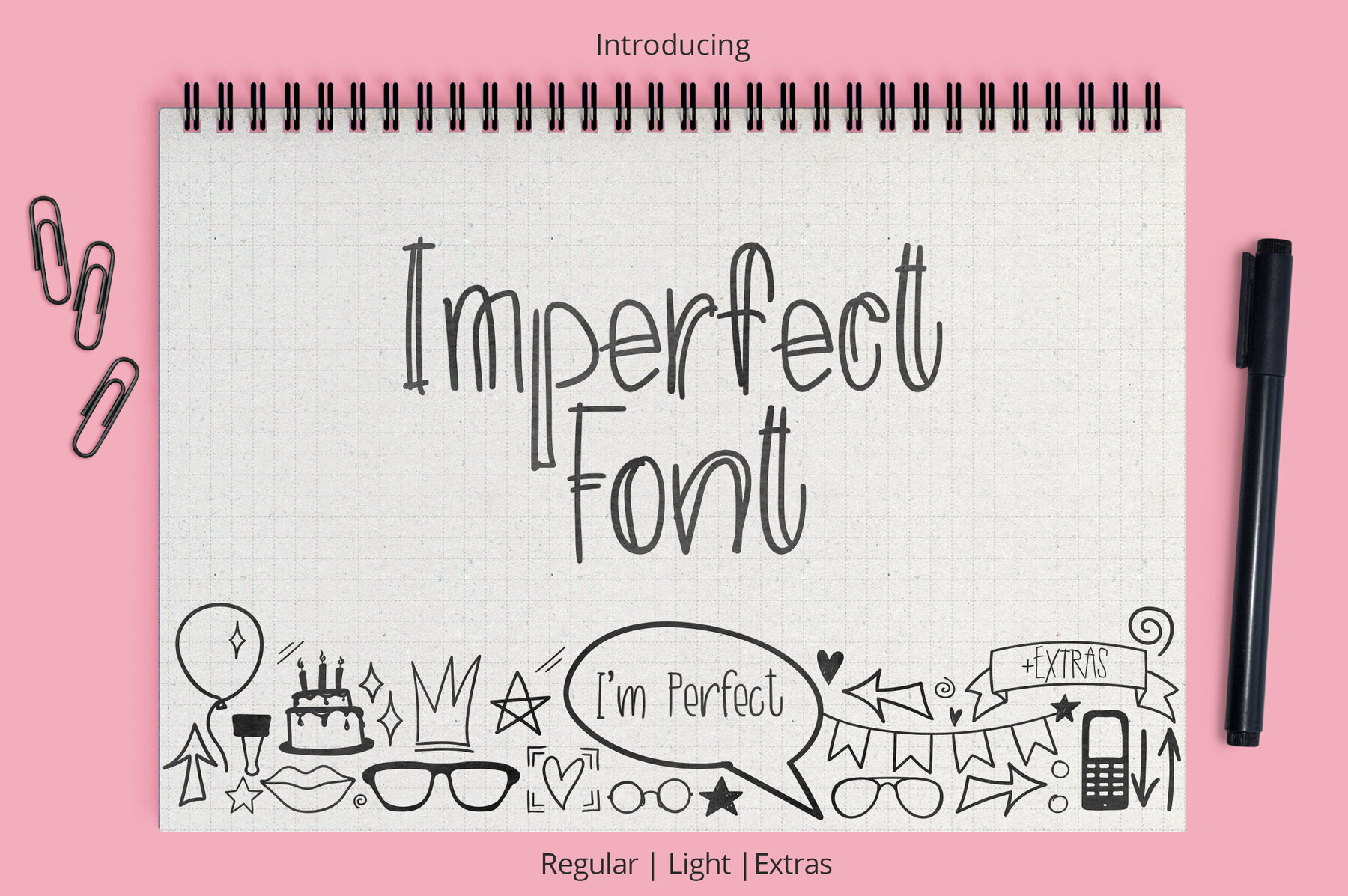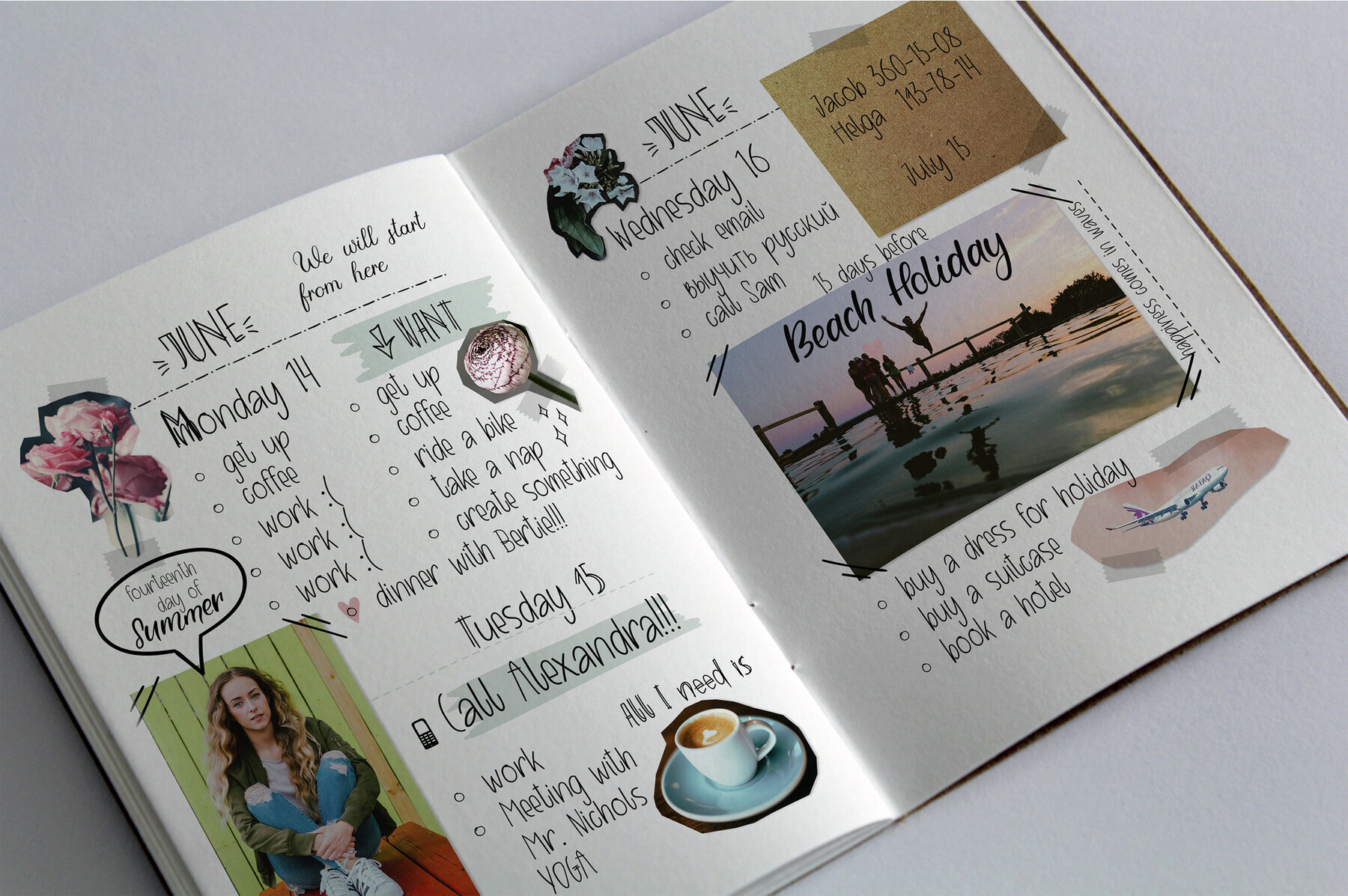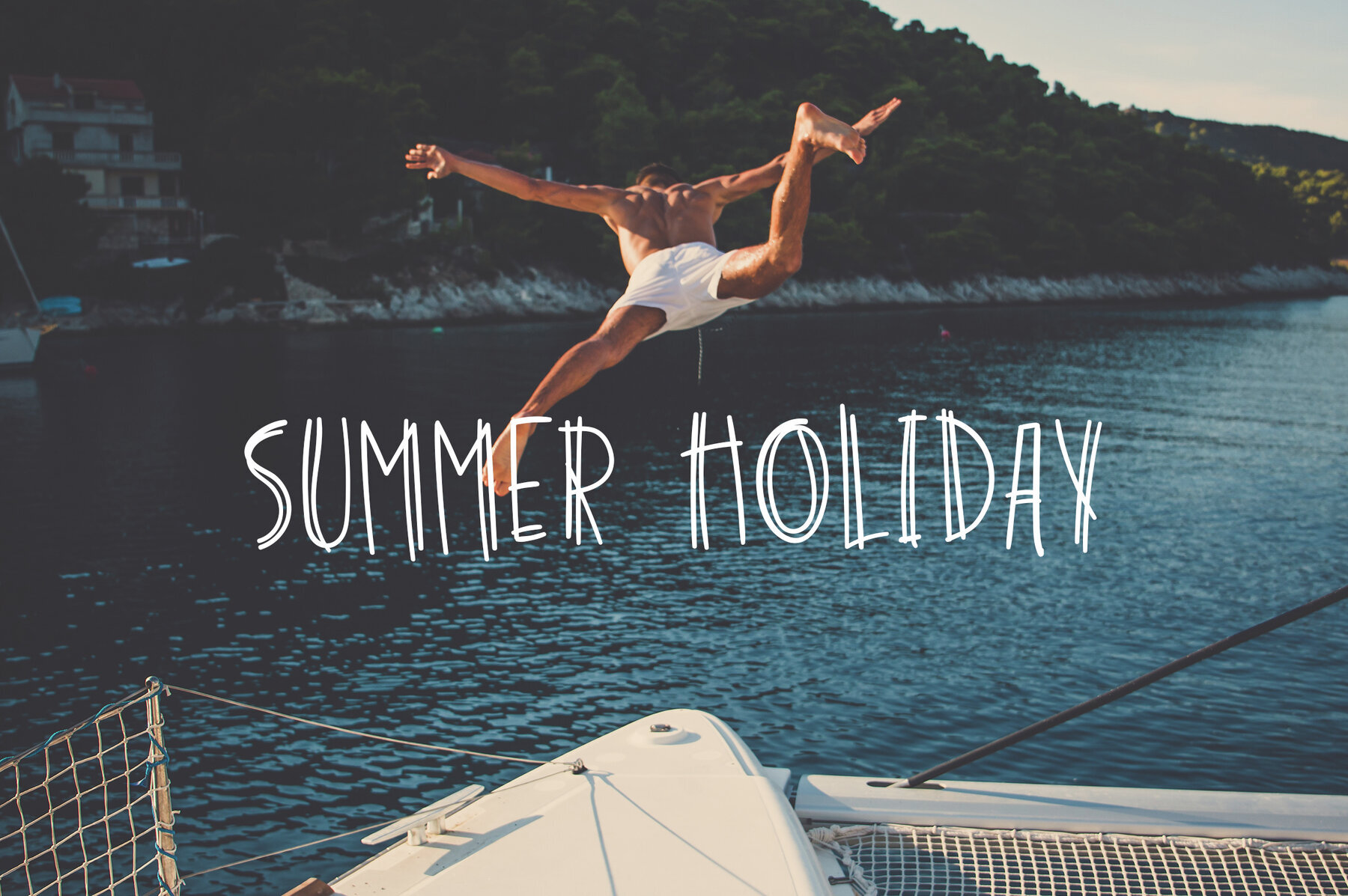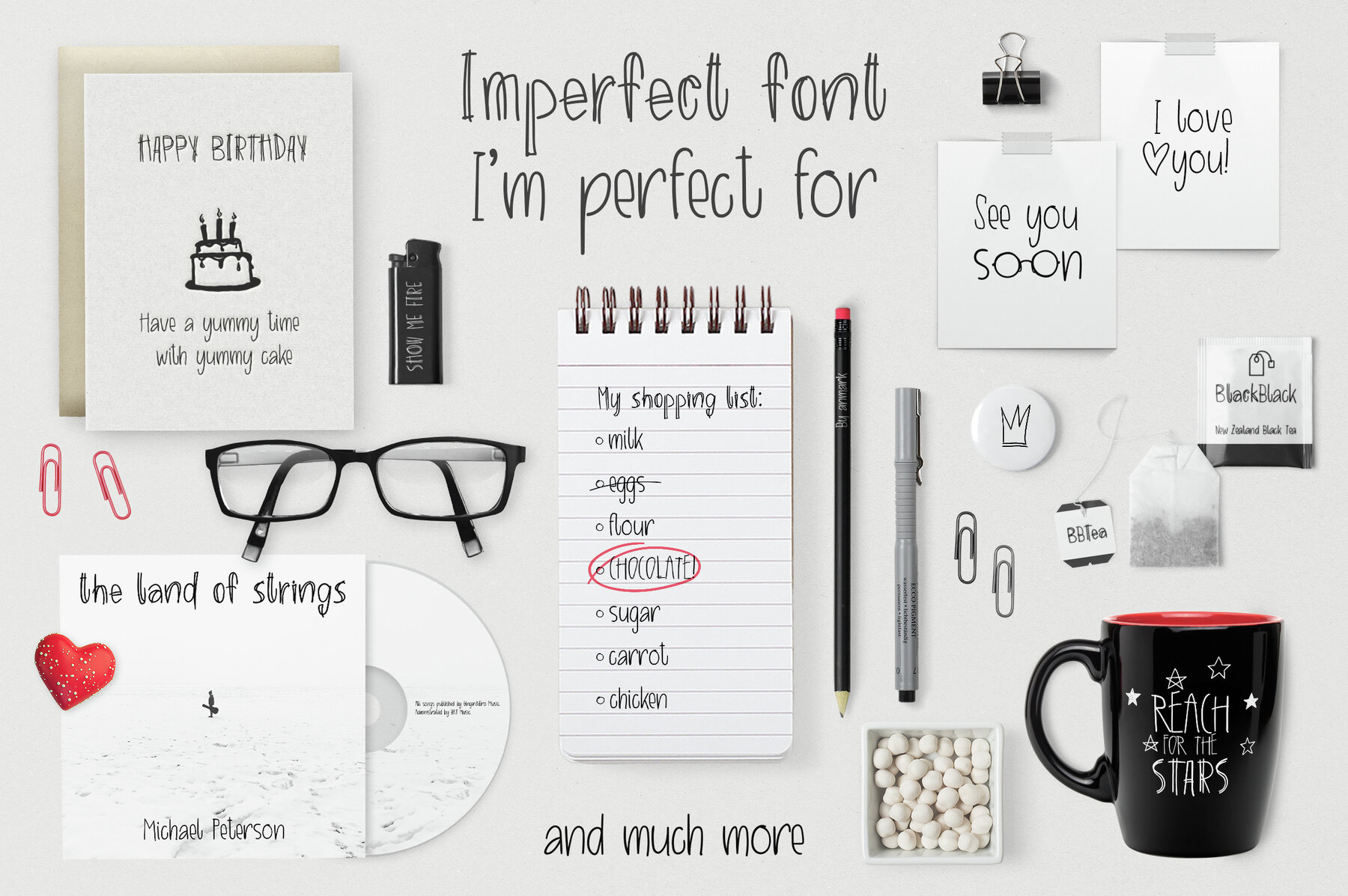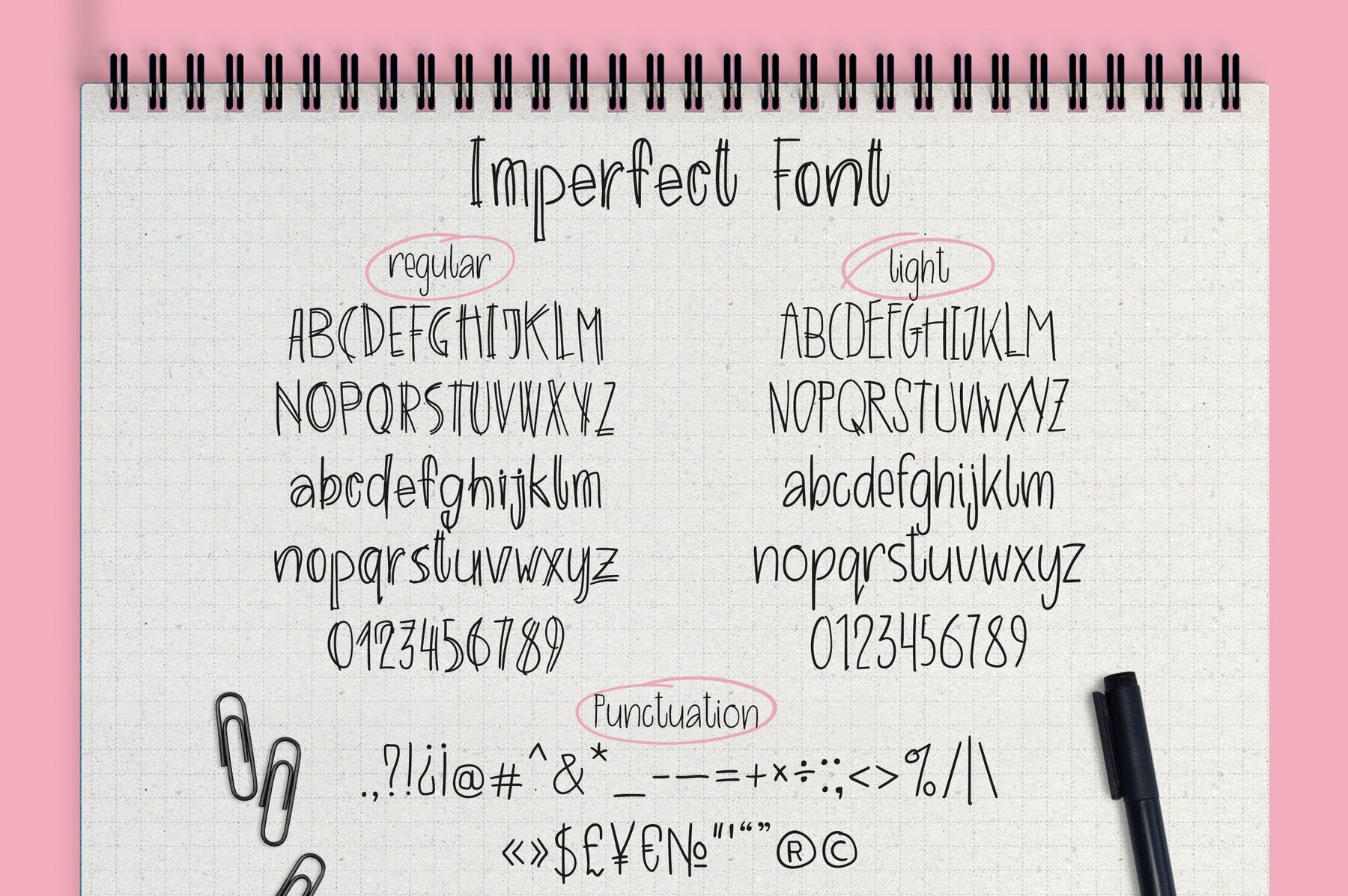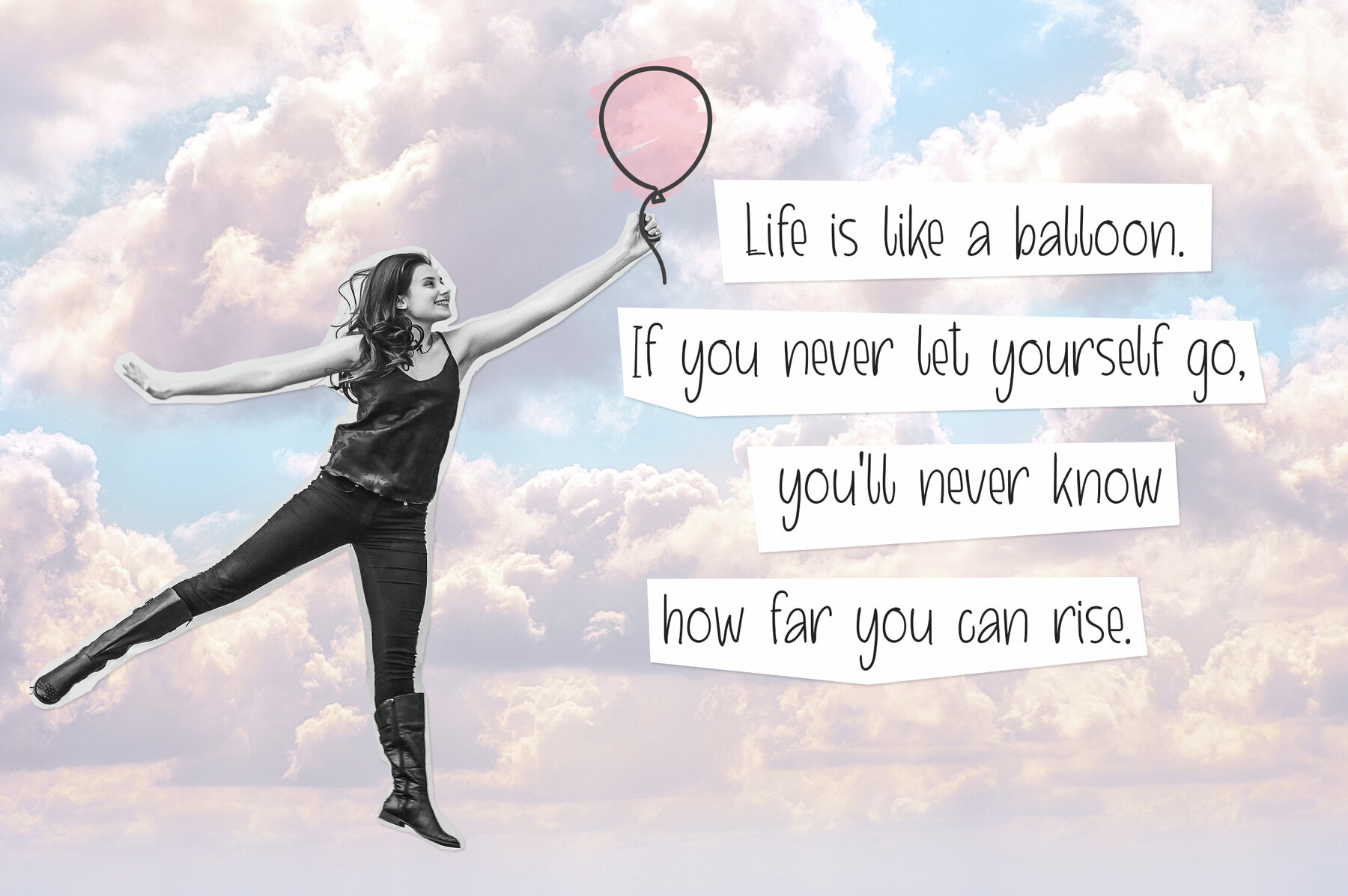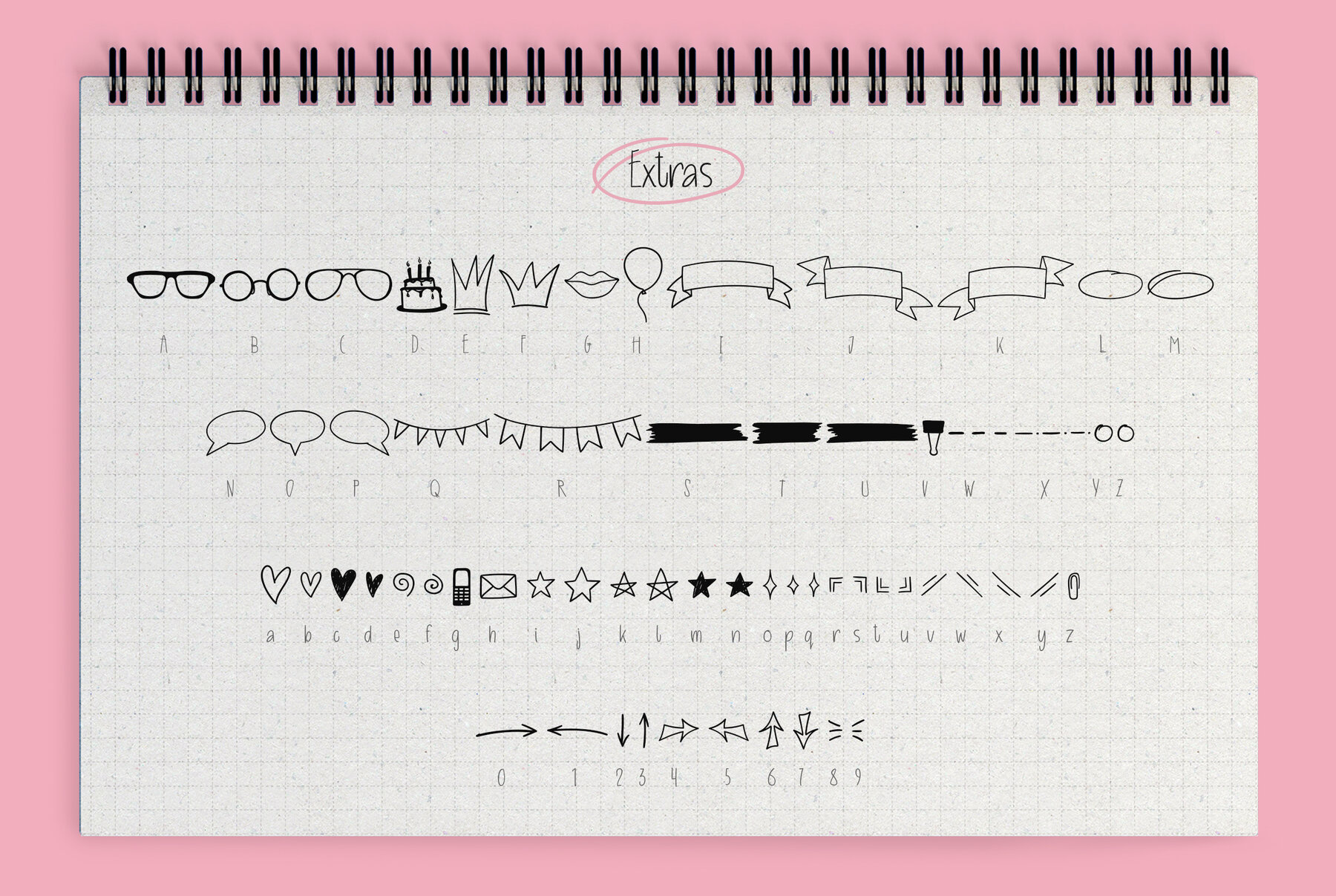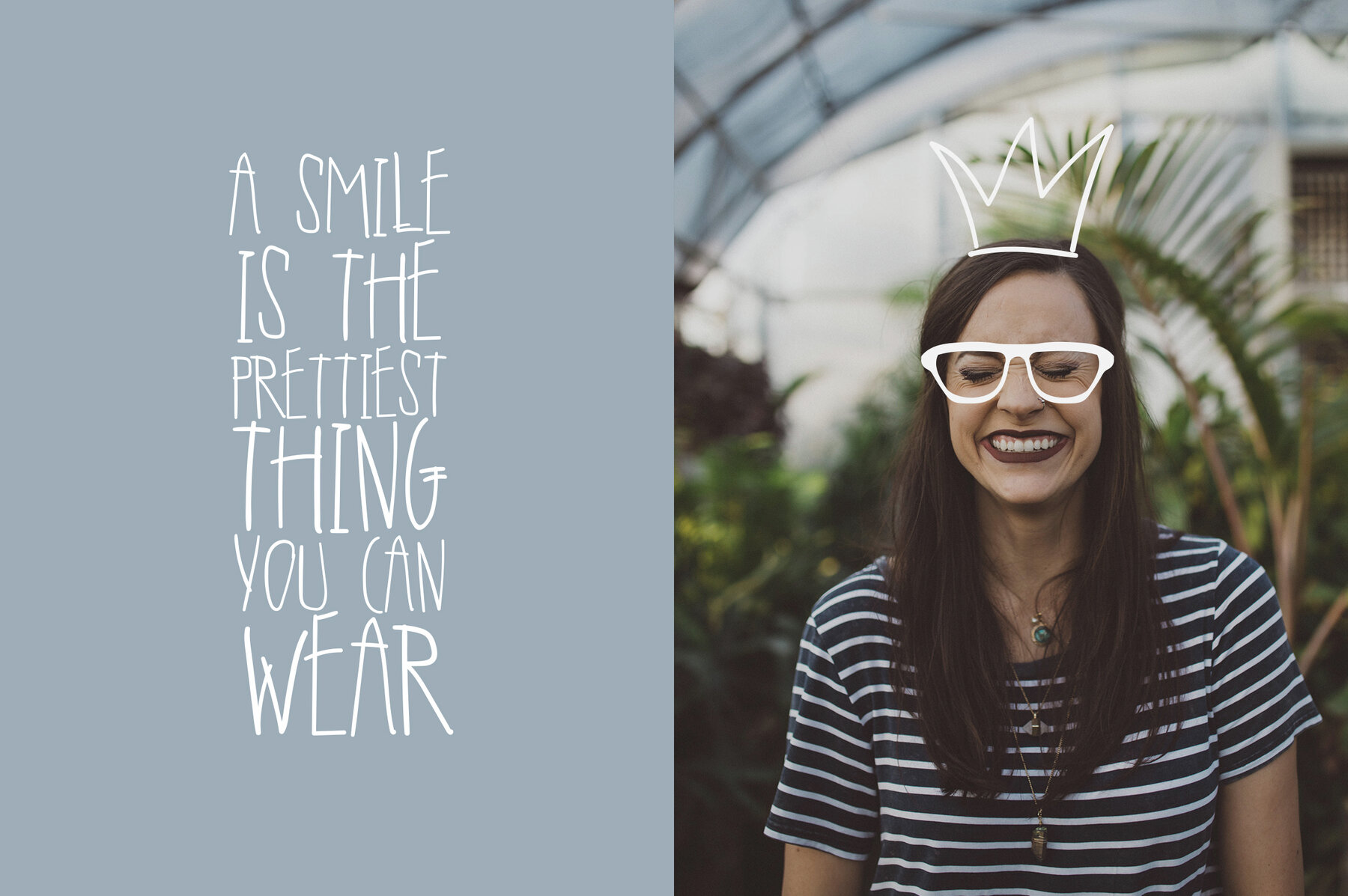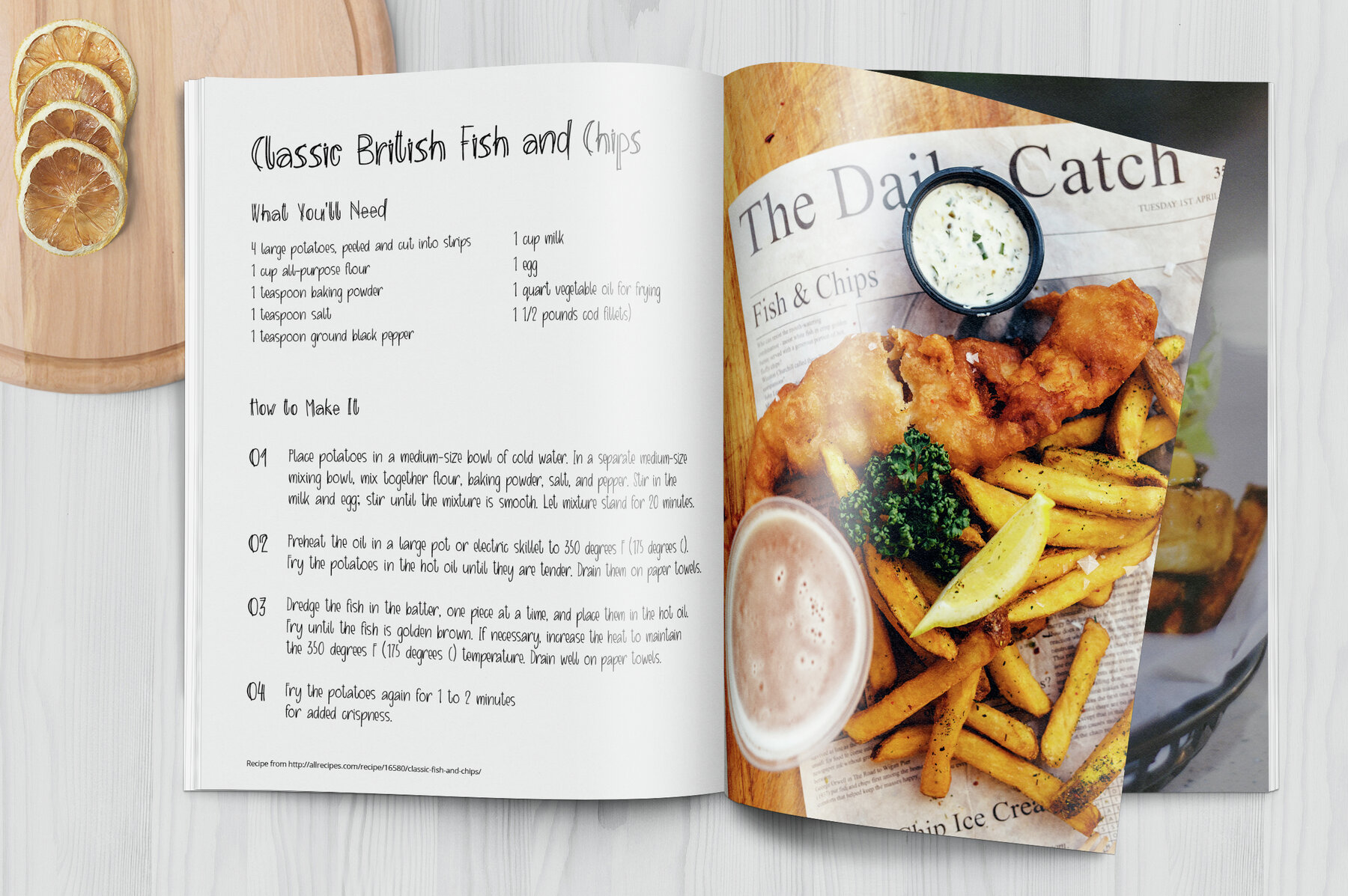
Imperfect font
Discover the charm of the Imperfect font family, a beautifully handwritten collection by Anmark. This font family features three distinct styles: Regular, Light, and Extras, allowing you to combine them to craft stunning and unique designs. The Imperfect font is ideal for a variety of creative projects such as recipe books, scrapbooking, greeting cards, product packaging, headings, flyers, posters, book covers, printed quotes, logotypes, apparel design, and album covers. Imperfect Font Light offers a quick handwritten style, perfect for projects requiring a casual touch like sketchbook scrapbooking. Imperfect Font Extras is a symbol font, designed to be used alone or alongside Imperfect Regular and Imperfect Light. These symbols are excellent for greeting cards, photo overlays, scrapbooking, and letter writing. The Imperfect font supports major European languages and includes Cyrillic letters. For queries, feel free to get in touch! Enjoy unleashing your creativity with the Imperfect font family!Imperfect Font: Versatile Handwritten Styles
Perfect for Various Projects
Font Styles Explained